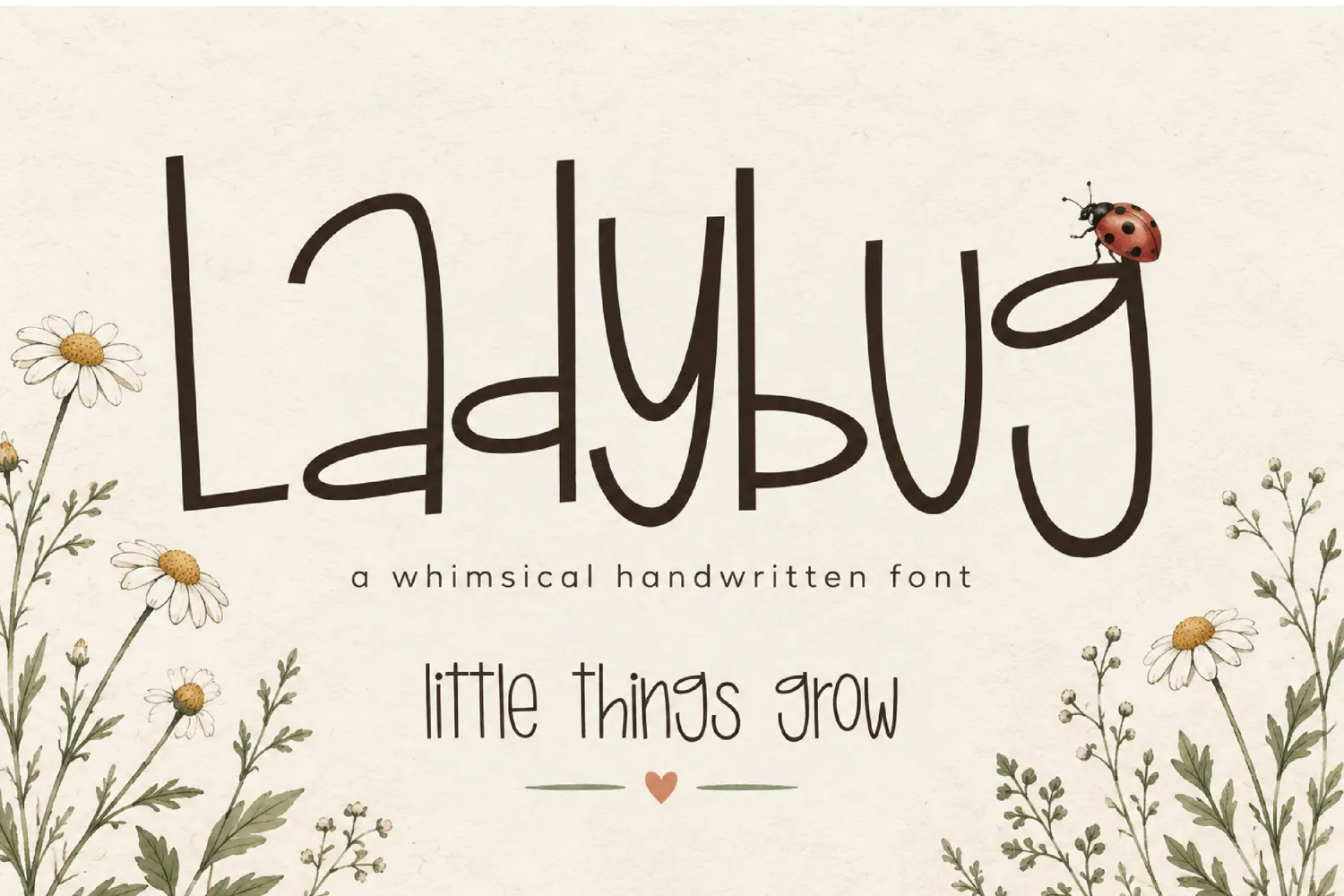
Ladybug | Whimsical Handwritten Font
Ladybug is a tall, whimsical handwritten font with playful, unexpected letter shapes. Its light lines give invitations, greeting cards, stickers, signs, and craft projects a cheerful, unique feel.